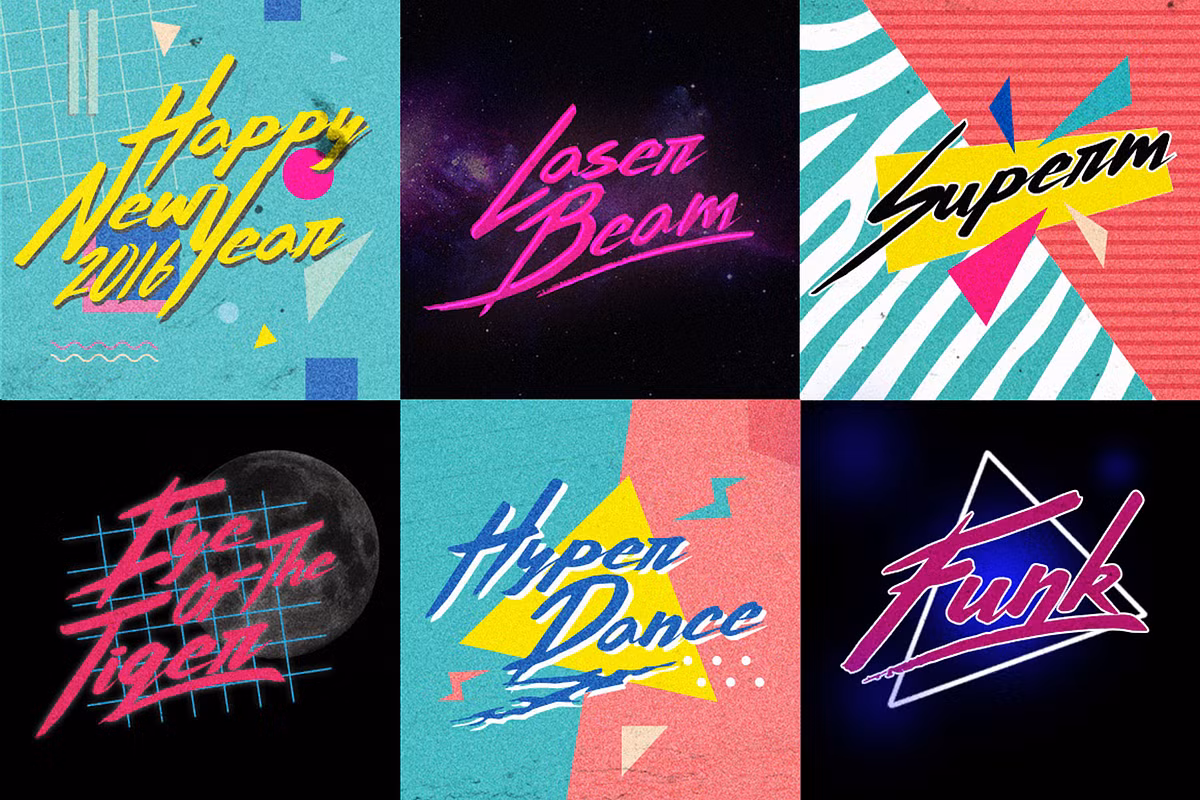
Thunderstorm Font: Retro-Inspired Hand-Made Typeface Bundle
The Thunderstorm font has a really cool, handmade look that’s inspired by the music and pop culture of the 80s and 90s. It’s a great way for designers to add a nostalgic feel to their work while still keeping it modern. This font is not just nice to look at, it’s also really versatile, which makes it perfect for all kinds of creative projects.
Whether you’re working on something for music, art, or anything else, the Thunderstorm font is a great choice. It’s a unique and eye-catching typeface that can help you stand out in a crowded field. With its retro vibe and modern twist, it’s a must-have for anyone who wants to add some excitement to their designs. The Thunderstorm font bundle is a valuable resource for creatives across all industries, and it’s sure to inspire some amazing work.
Design Style of Thunderstorm Font
The Thunderstorm font embodies a playful yet edgy design that reflects the eclectic styles of retro music, disco, and grunge aesthetics. This hand-made brush typeface features a dynamic and expressive character set that captures the raw energy of its inspiration.
The thick, bold strokes paired with smooth curves create a visually striking appearance that stands out in any context. The Thunderstorm font has a really unique look with its rough edges and natural feel. This makes it perfect for adding some character to your designs.
Character Sets and Multilanguage Support
If you’re working on a project that needs a bit of personality, like a vintage album cover or a logo for a trendy clothing line, this font is a great choice. It’s also really effective for grabbing people’s attention on promotional posters. Overall, the Thunderstorm font is a great way to give your designs a one-of-a-kind feel that sets them apart.
The Thunderstorm font is really versatile, it’s got a big set of characters that lets you express yourself freely. You get uppercase and lowercase letters, numbers, and all sorts of special characters, so you can use it for lots of different things.
Use Cases for Thunderstorm Font
And the best part is, it now supports languages from Central Europe, which means people from all over can use it, no matter where they’re from or what language they speak. This makes it super useful for all kinds of projects, and it’s a great choice if you want a font that can keep up with your creativity.
Pairing Suggestions for Thunderstorm Font
Pairing fonts effectively can greatly enhance your design’s overall aesthetic. Here are some pairing suggestions that complement the Thunderstorm font:
- Montserat: This modern sans-serif font pairs well with the Thunderstorm typeface, providing a clean contrast that highlights the playful nature of the brush strokes.
- Raleway: The elegant, geometric forms of Raleway offer a sophisticated balance to the boldness of Thunderstorm, making it suitable for high-end branding projects.
- Playfair Display: This classic serif style can look really good with Thunderstorm, making editorial designs more interesting and eye-catching.
The Thunderstorm font is really something special – it’s a handmade brush typeface that’s all about capturing the fun and energy of old-school pop culture. This font is a great tool for designers because it’s bold, works with lots of different languages, and can be used in many different ways.
Whether you’re making posters, logos, clothes, or invites, the Thunderstorm font can add a unique touch that makes your work stand out. It’s perfect for anyone who wants to create something eye-catching and special. You should definitely think about adding this amazing font to your collection – it can really help take your projects to the next level!